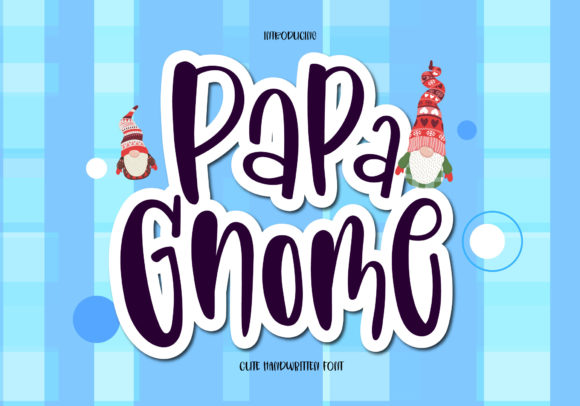
In a world saturated with monotonous fonts, Papa Gnome emerges as a breath of fresh air, a whimsical handwritten font that captures the essence of playfulness and imagination. Crafted with meticulous care by the renowned BB Type Studios, Papa Gnome embodies the spirit of Christmas, evoking the warmth of a crackling fireplace and the joy of gift-giving.
With its enchanting curves and playful strokes, Papa Gnome dances across the page, adding a touch of whimsy to any project. Its versatility knows no bounds, seamlessly adapting to product designs, book covers, cartoon posters, birthday cards, school projects, and more. Whether you're a seasoned designer or a creative enthusiast, Papa Gnome will undoubtedly become your go-to font for injecting personality and charm into your creations.
Imagine the delight of your customers when they receive their Christmas cards adorned with Papa Gnome's festive flair. The font's inherent cheerfulness will instantly spread holiday cheer, leaving a lasting impression that extends far beyond the gift itself. Or picture the smiles on children's faces as they read bedtime stories brought to life by Papa Gnome's playful characters. With every twist and turn of its enchanting letters, Papa Gnome weaves a magical spell, captivating readers of all ages.
This Christmas, elevate your designs to new heights with Papa Gnome. Let its infectious joy and festive spirit permeate your creations, transforming them into cherished keepsakes that will be treasured for years to come. Experience the magic of Papa Gnome today and embark on a creative journey filled with imagination, laughter, and boundless possibilities.